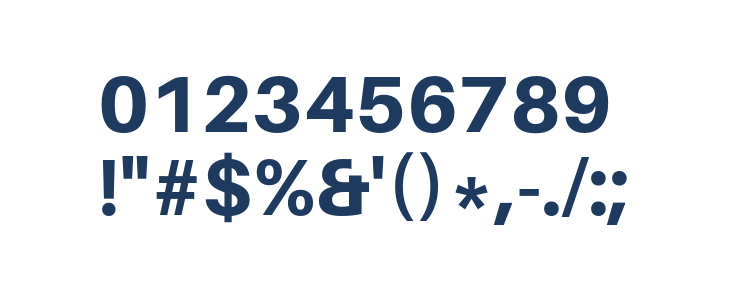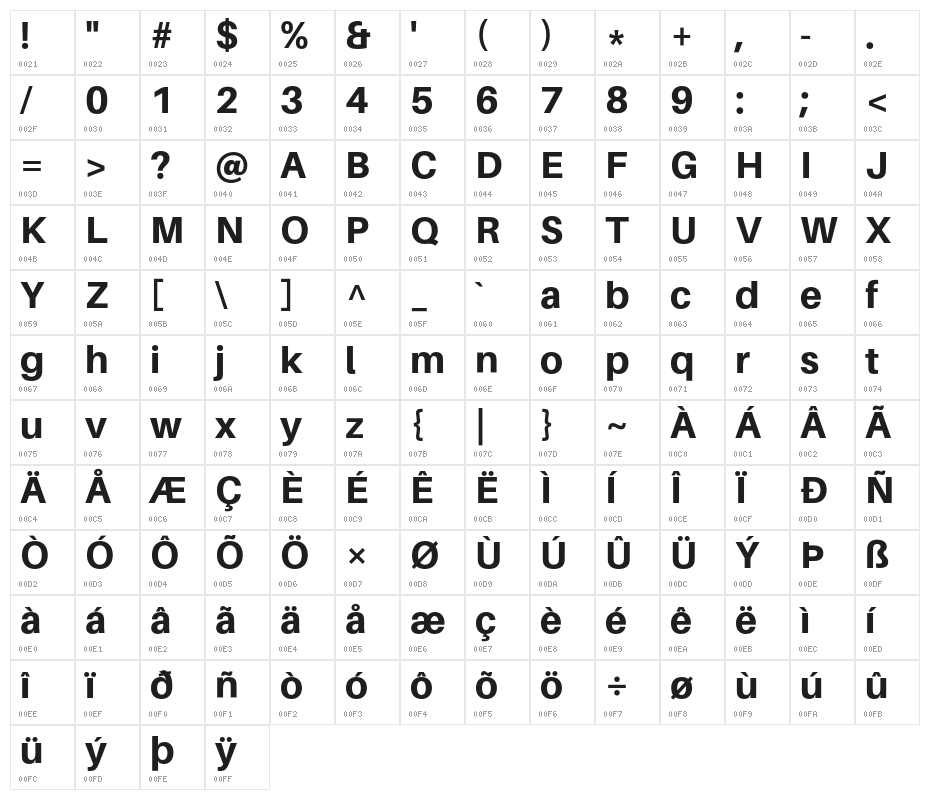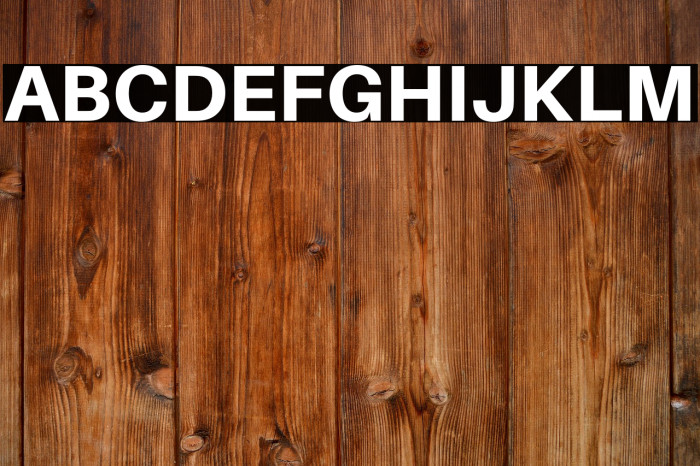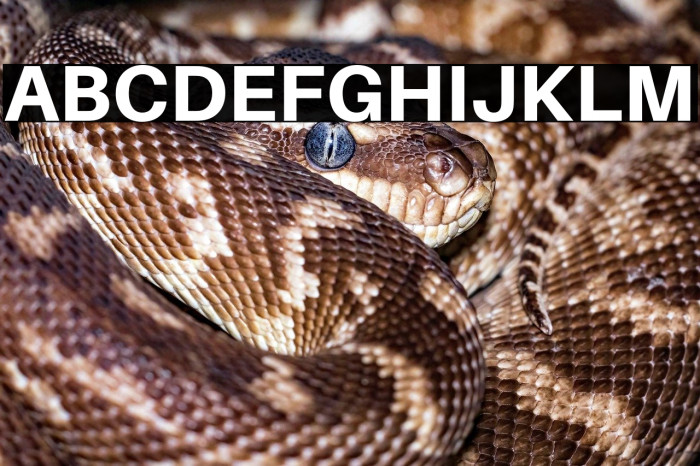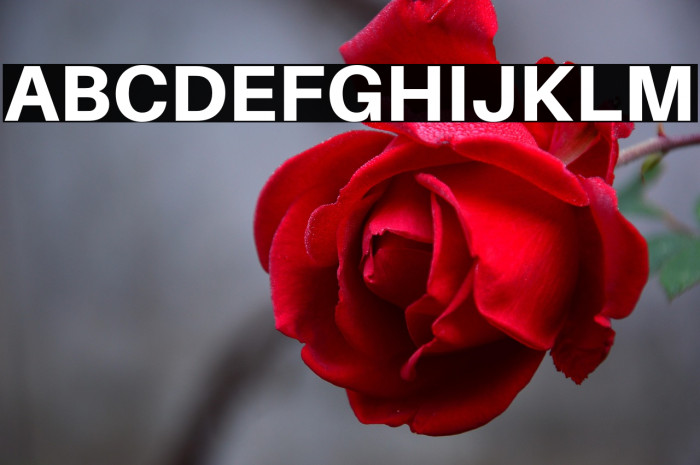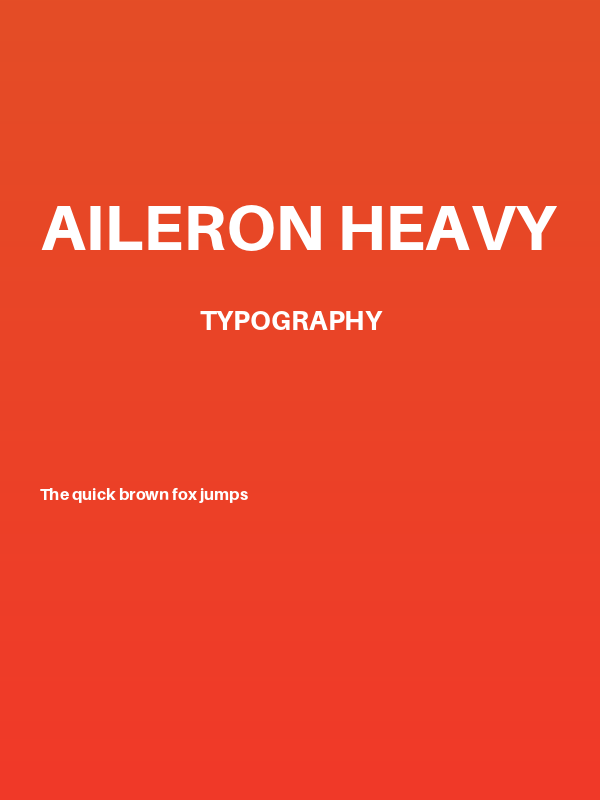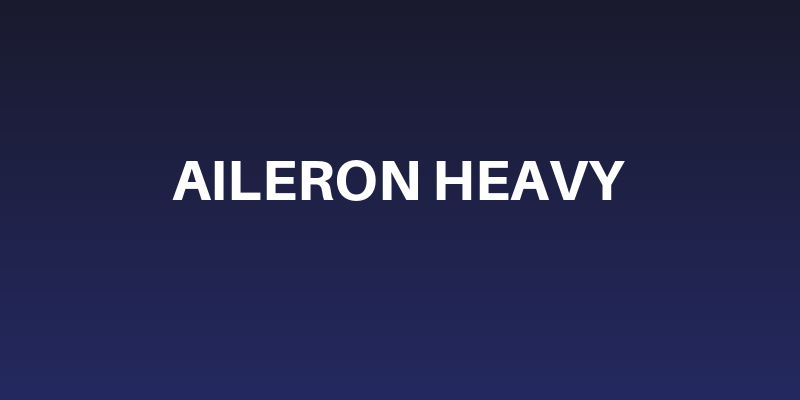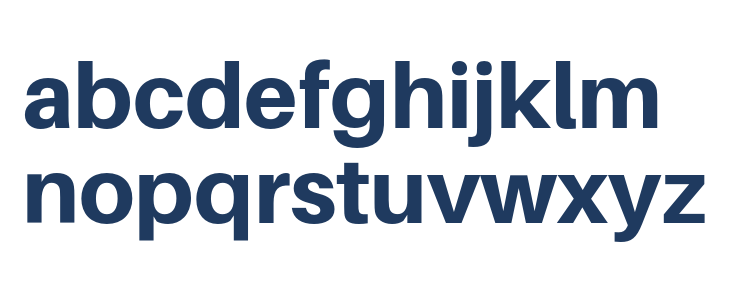
Aileron Heavy Font
Aileron Heavy Description
This typeface features a bold and clean design, characterized by its strong geometric shapes and uniform stroke widths. The uppercase letters are robust and impactful, making them ideal for attention-grabbing headlines. Lowercase letters maintain a consistent weight, providing a harmonious balance with the uppercase. The numerals are clear and legible, suitable for both digital and print formats. Special characters are well-defined, ensuring versatility in various contexts. Overall, this font exudes a modern and professional aesthetic, suitable for a wide range of applications.
| Proposed Projects | Ideal for branding, advertising, headlines, and digital content where a strong visual impact is needed. |